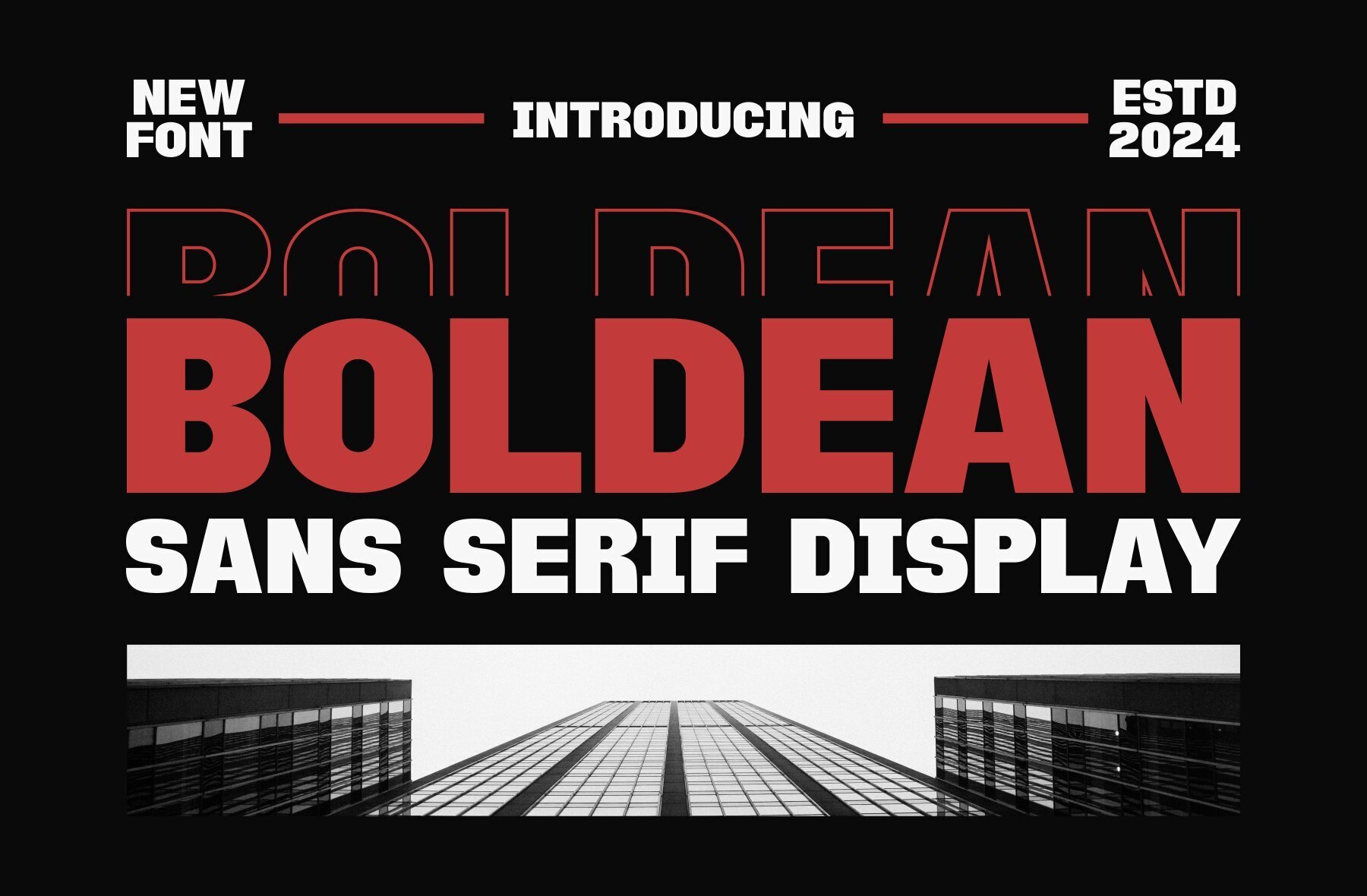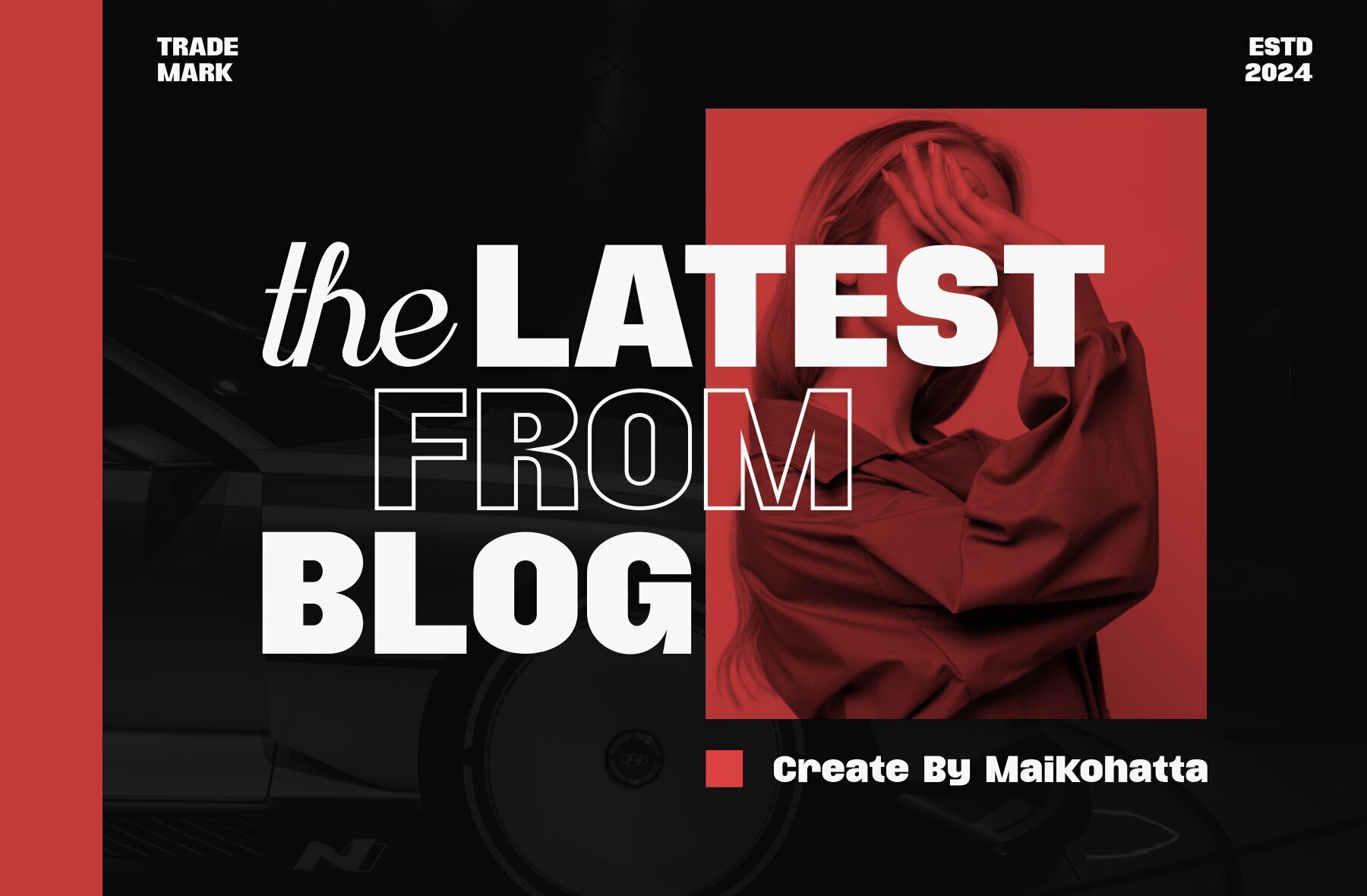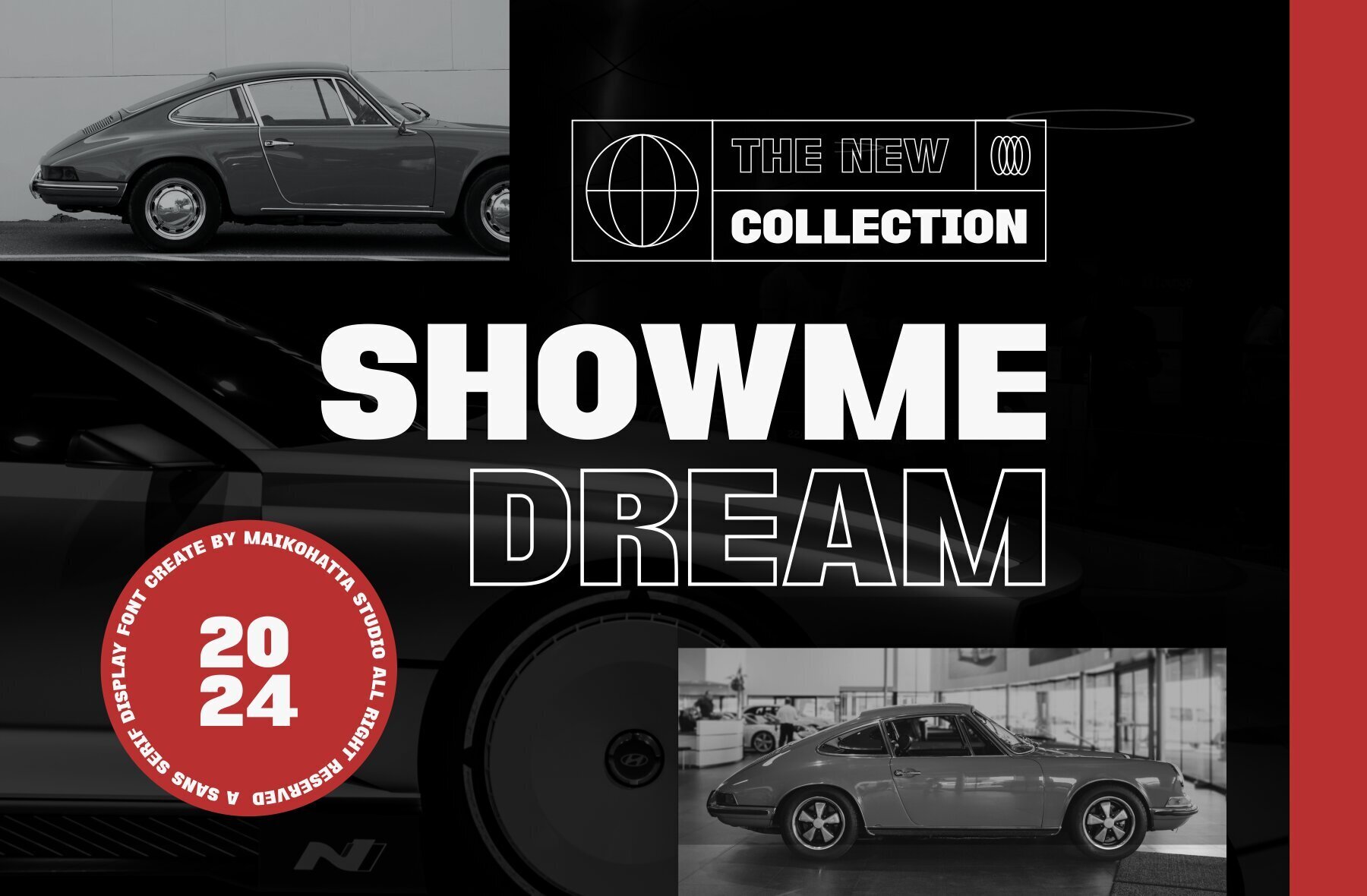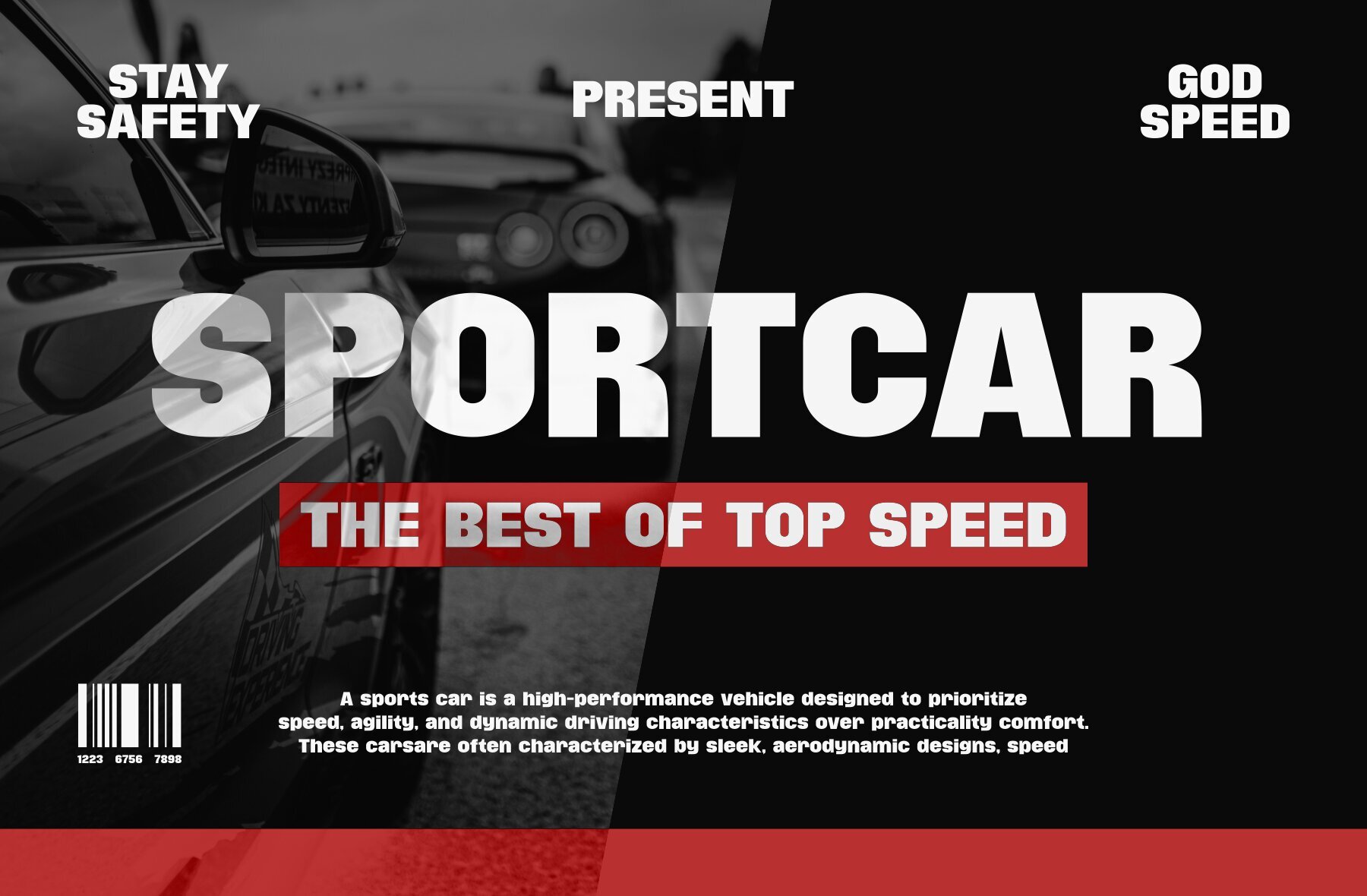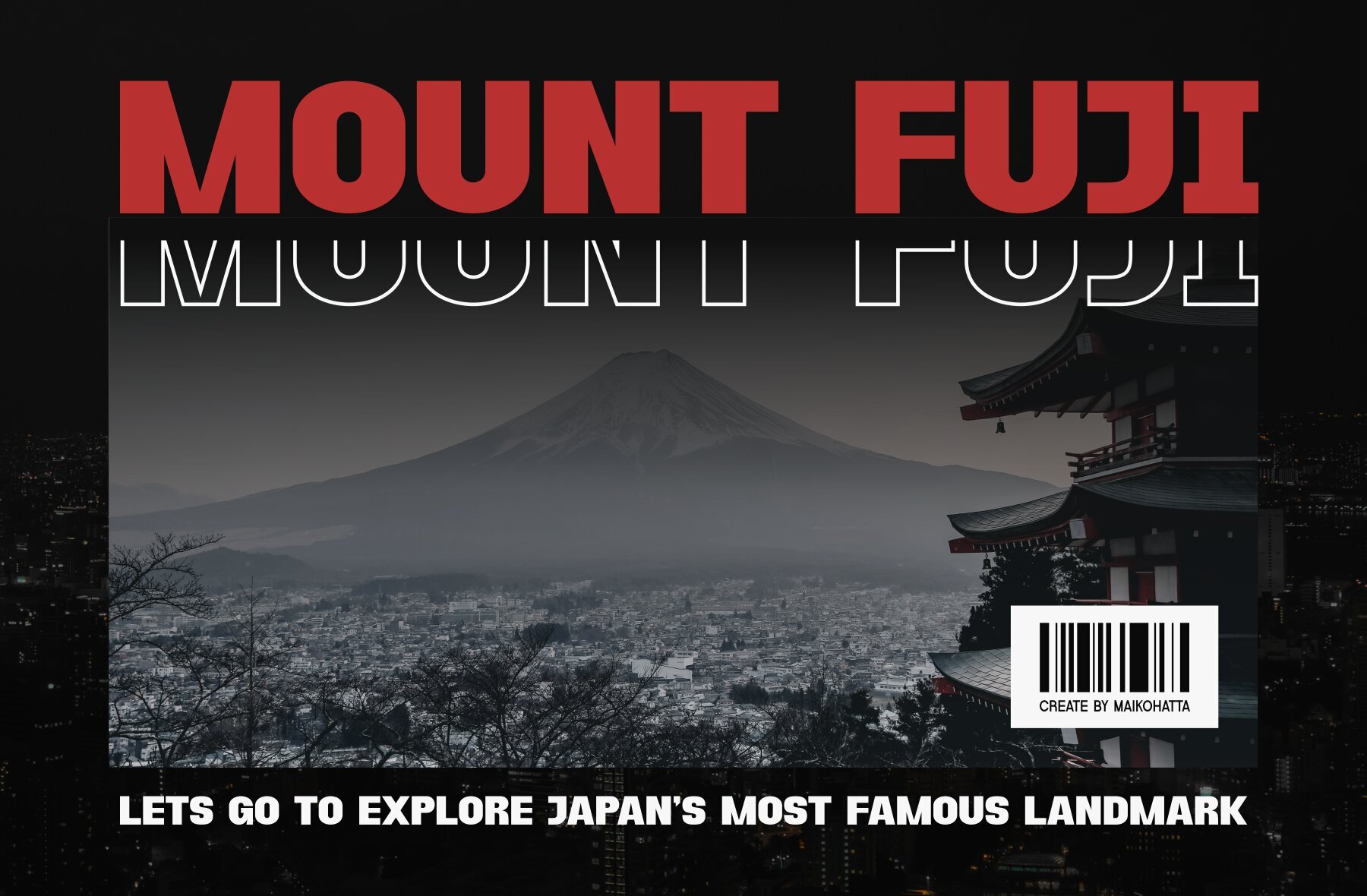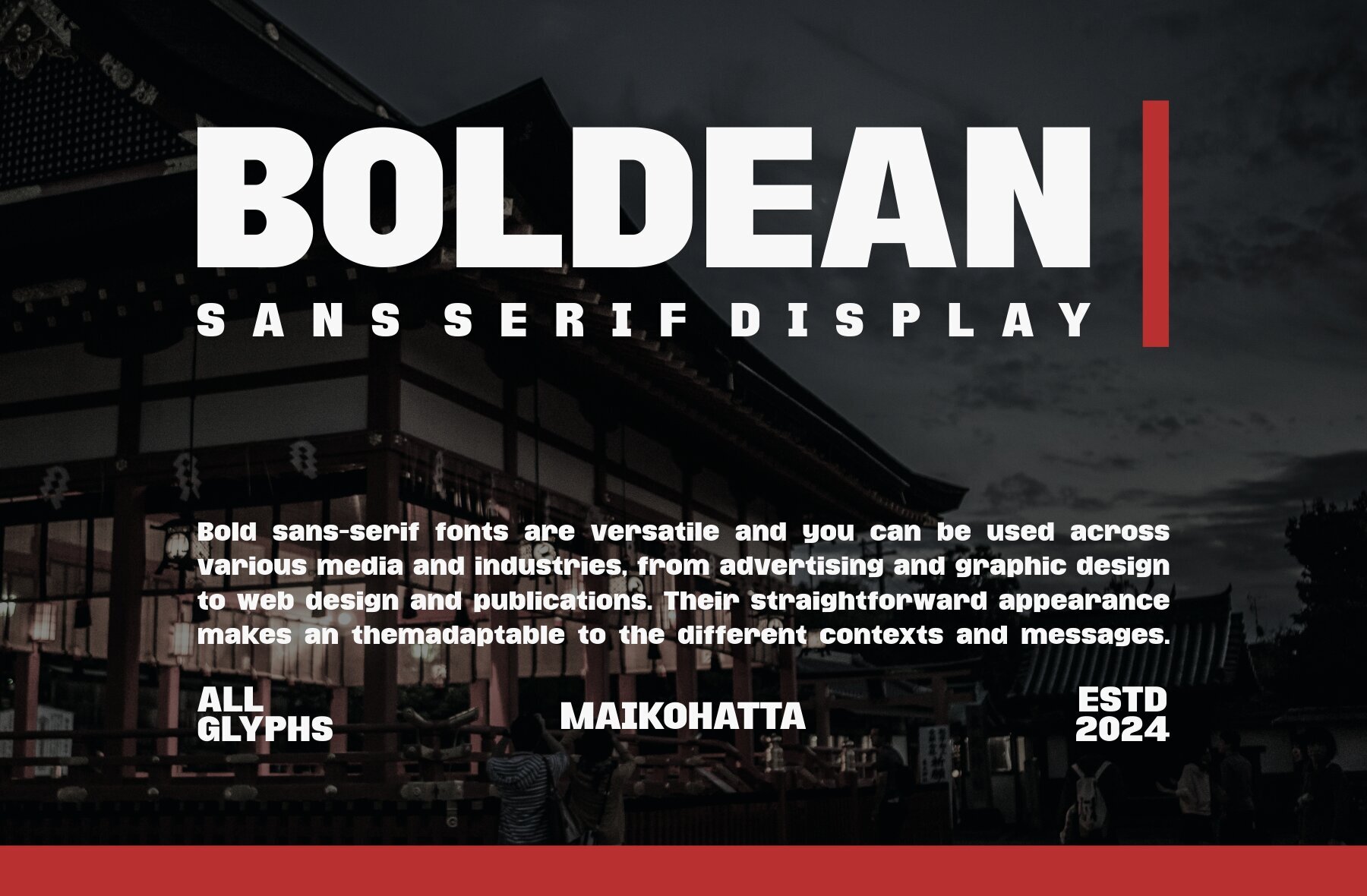
Boldean Font
Boldean Regular
Boldean - Sans Serif Display is a bold and authentic display font perfect for various branding projects including logos, template designs, eSports, and more. It stands out across a wide range of contexts. Available in OTF and TTF formats, it features uppercase, lowercase, and multilingual support.